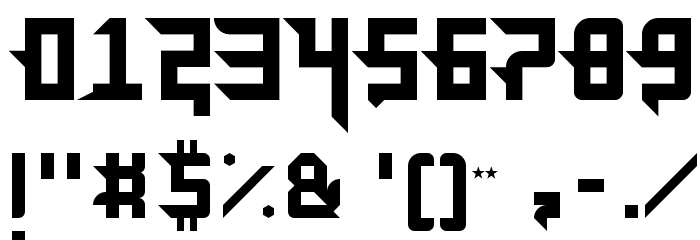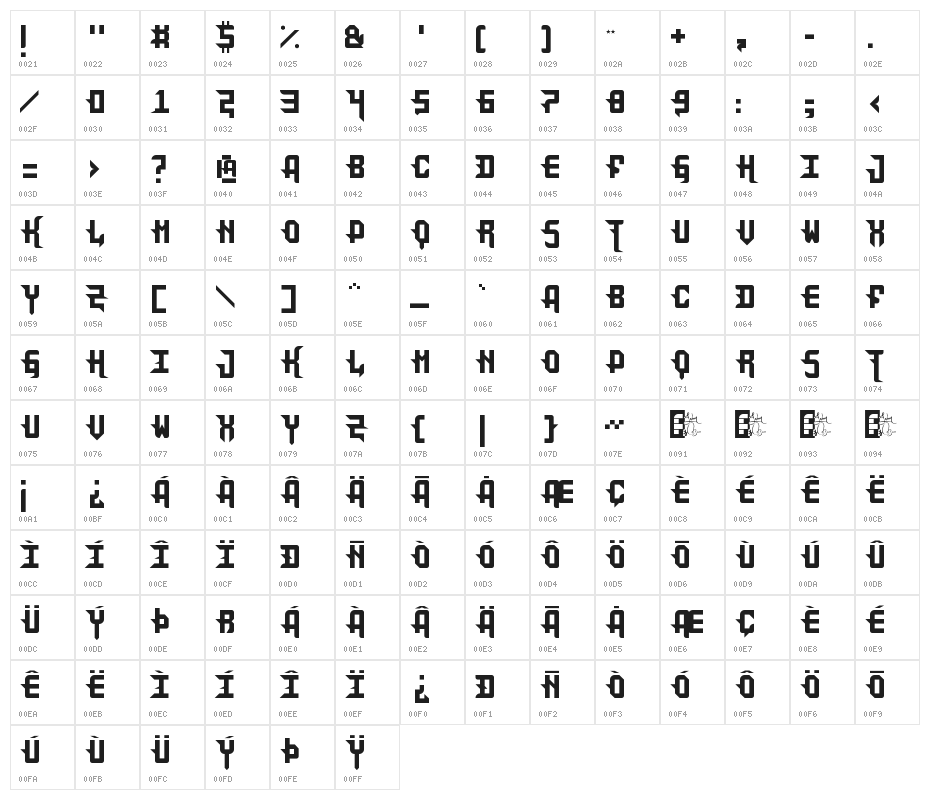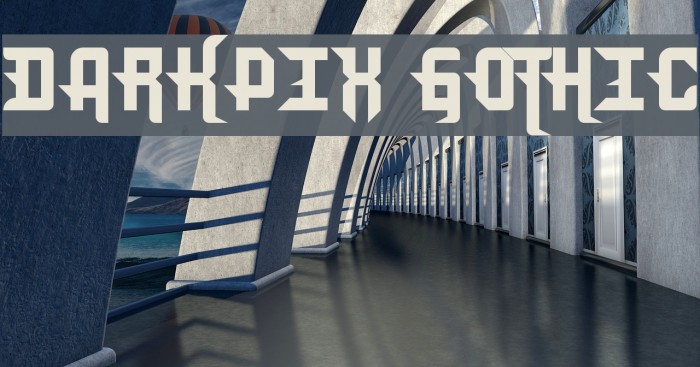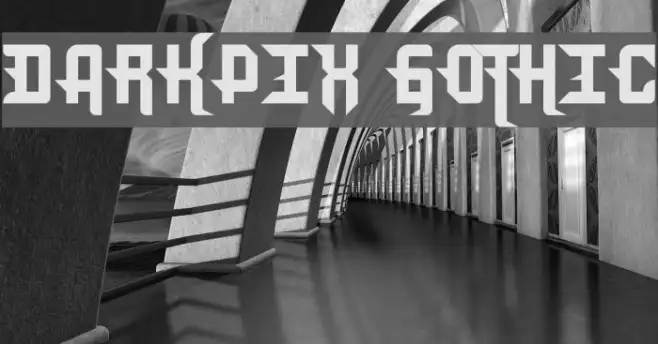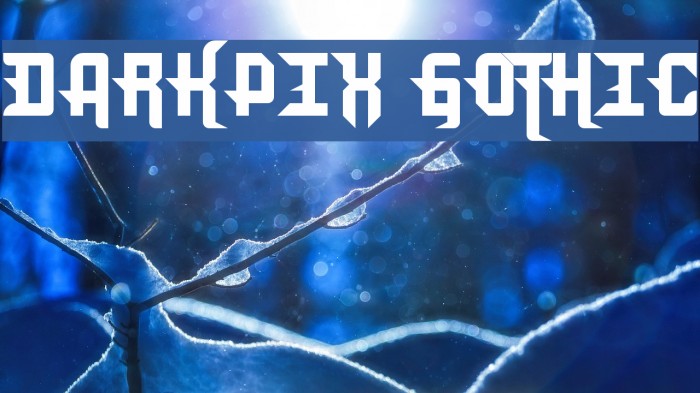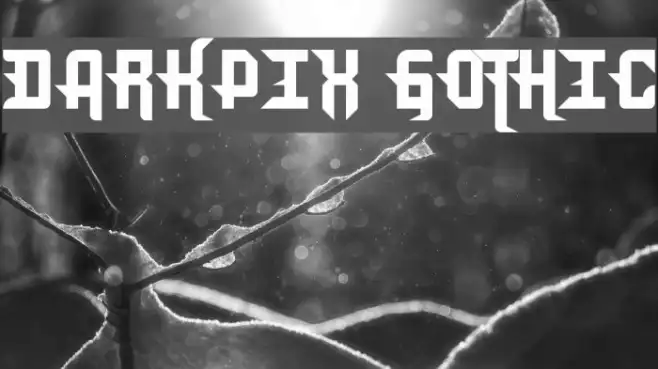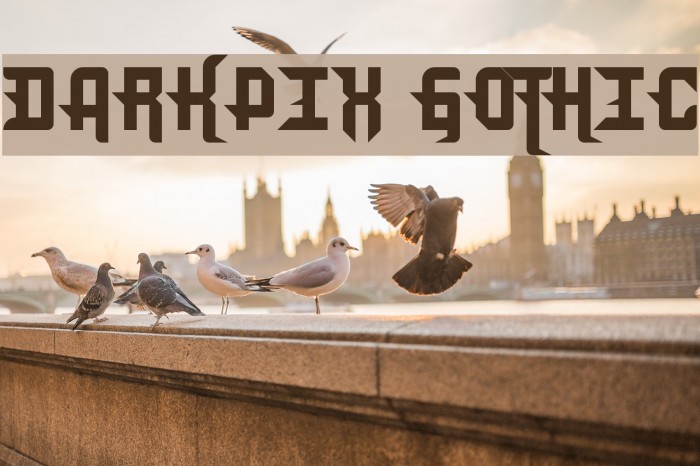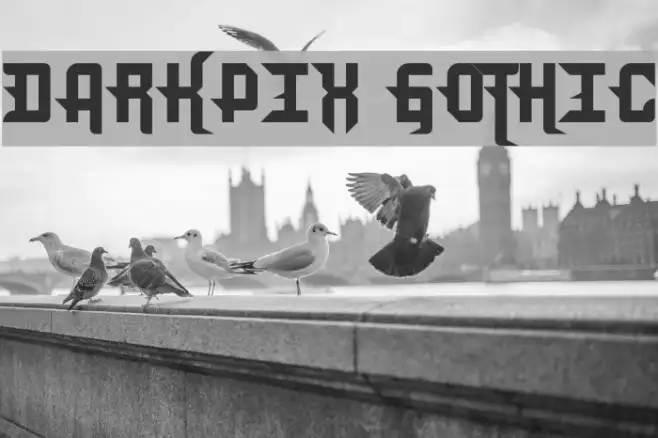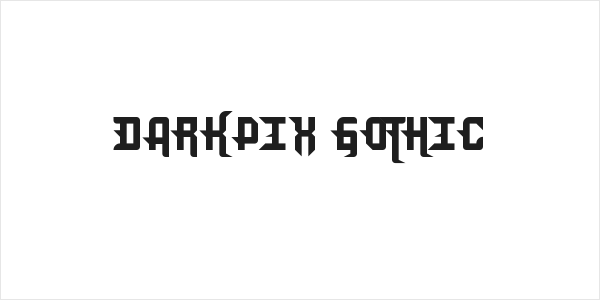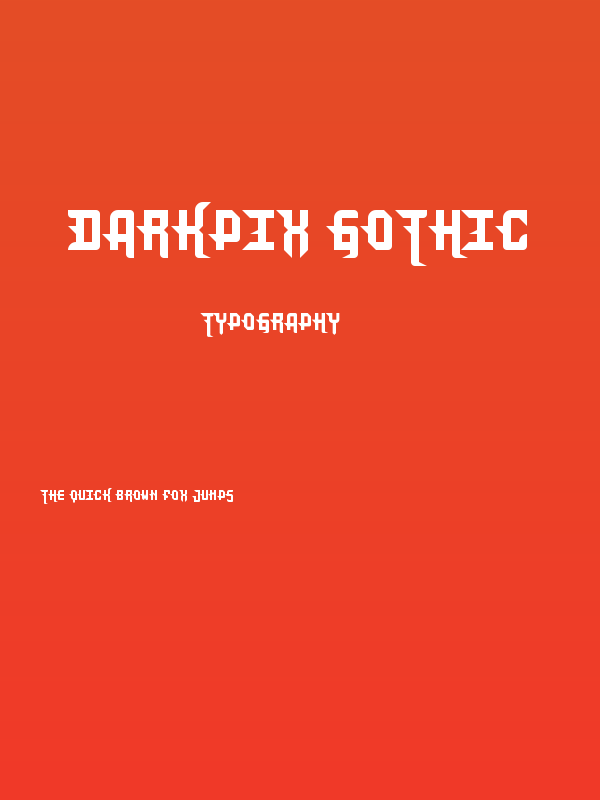
DarkPix Gothic Font
DarkPix Gothic Description
This font exhibits a bold and striking design with a gothic influence, characterized by sharp angles and geometric shapes. The uppercase and lowercase letters maintain a consistent style, featuring pointed edges and a blocky structure that conveys a sense of strength and modernity. The numerals and special characters follow the same aesthetic, ensuring uniformity across all glyphs. The font's unique appearance makes it suitable for projects that require a distinctive and edgy look, such as branding for alternative music bands, video game titles, or edgy fashion labels.
| Overall Style | Modern, Gothic |
| Proposed Projects | Ideal for branding, album covers, video game titles, and fashion labels. |